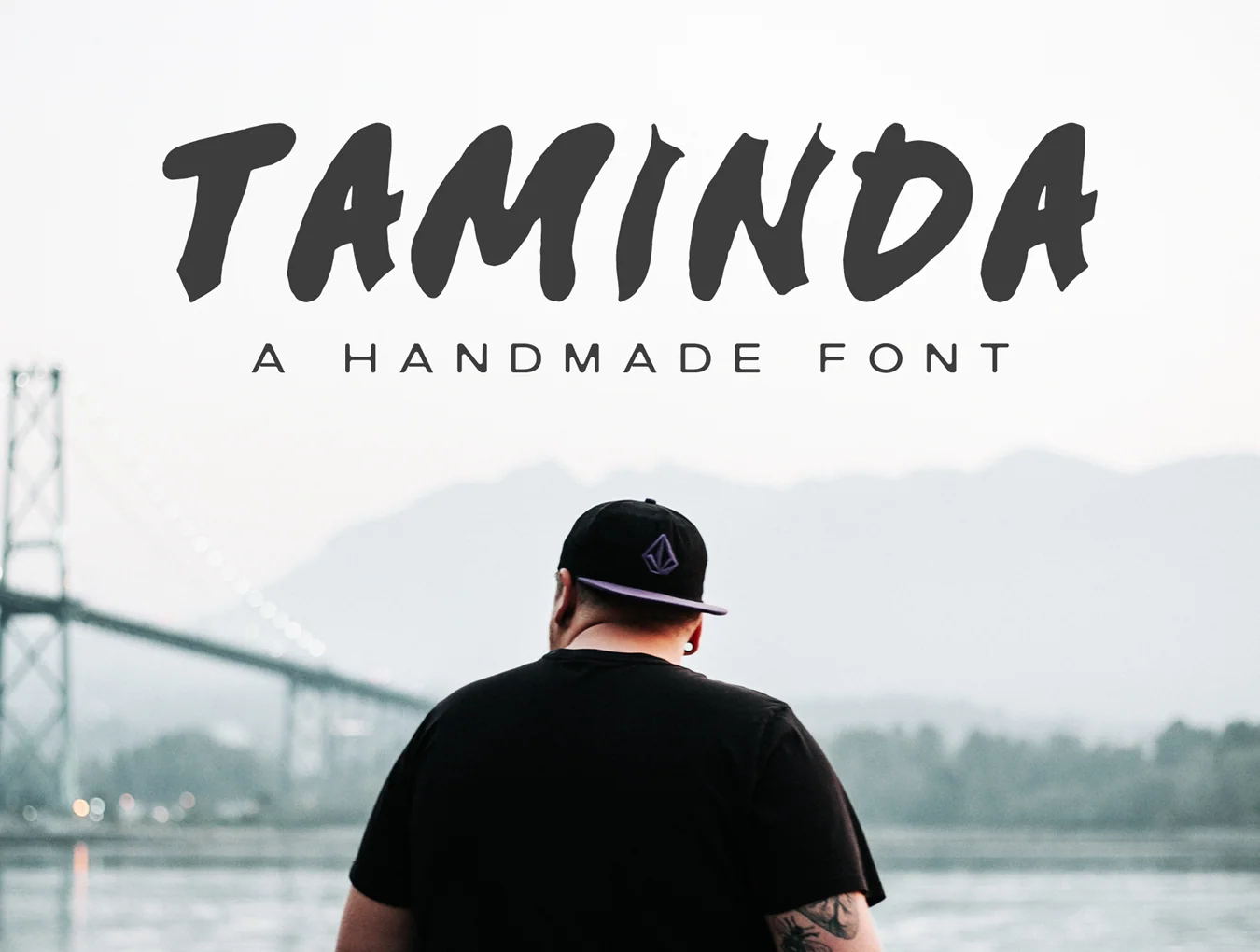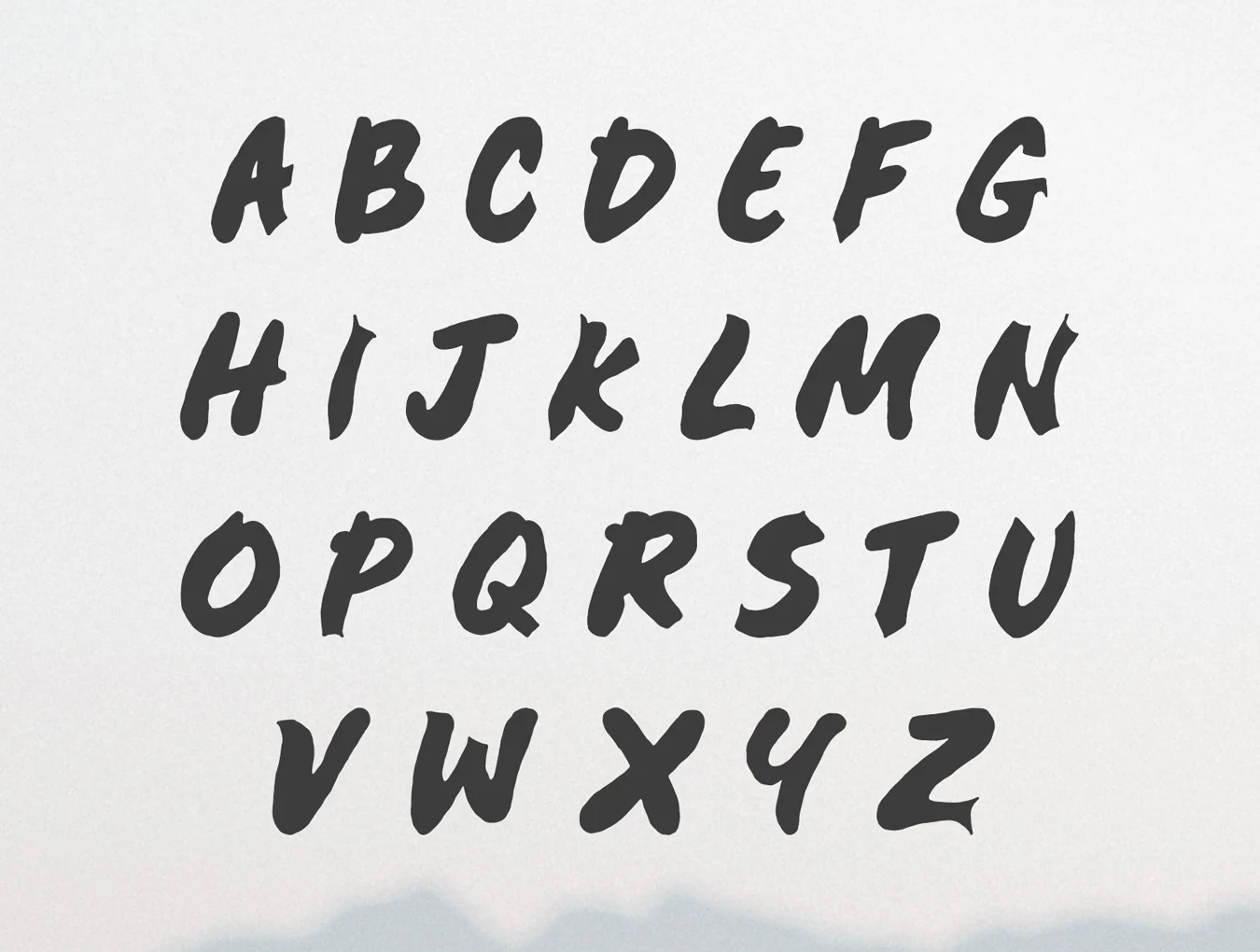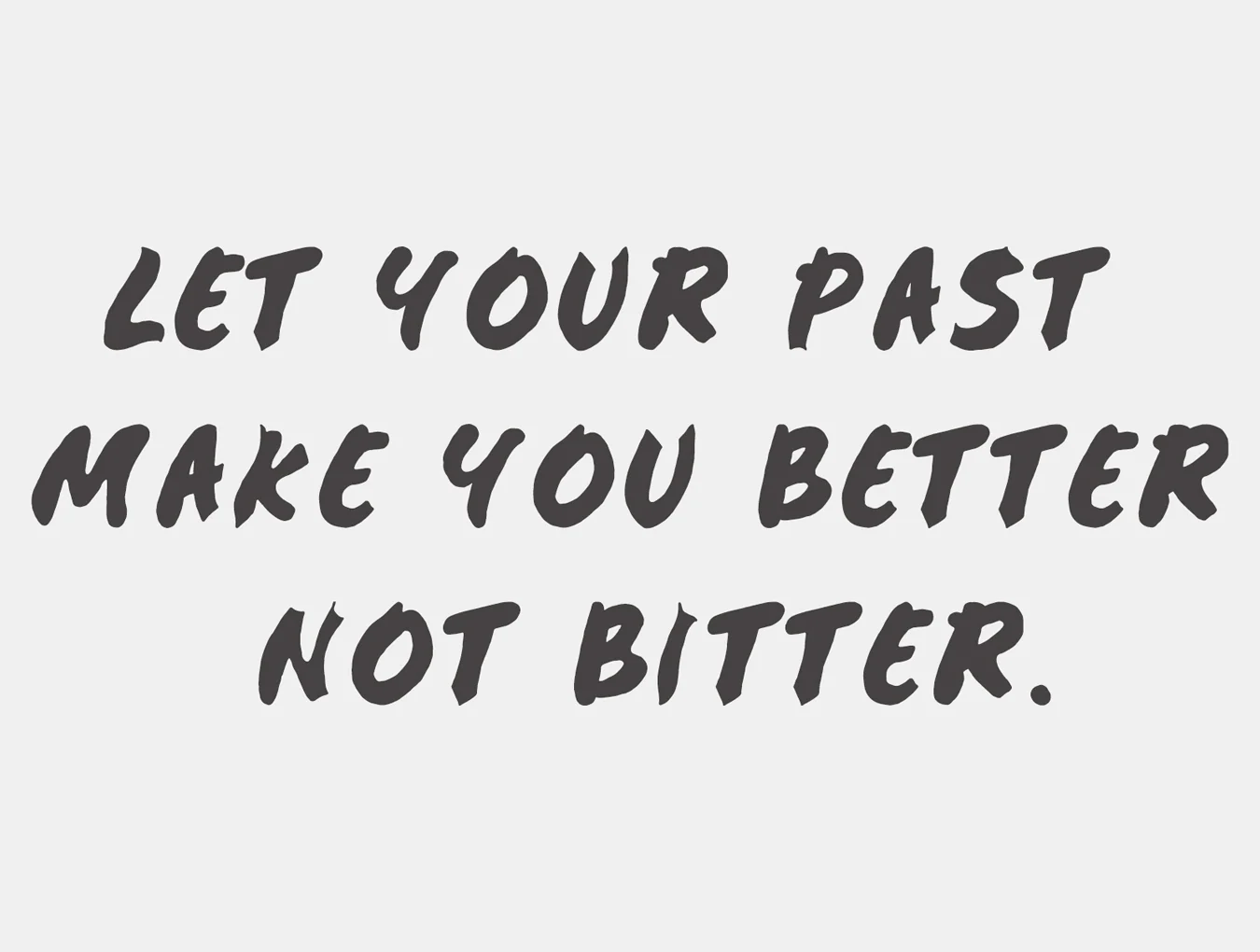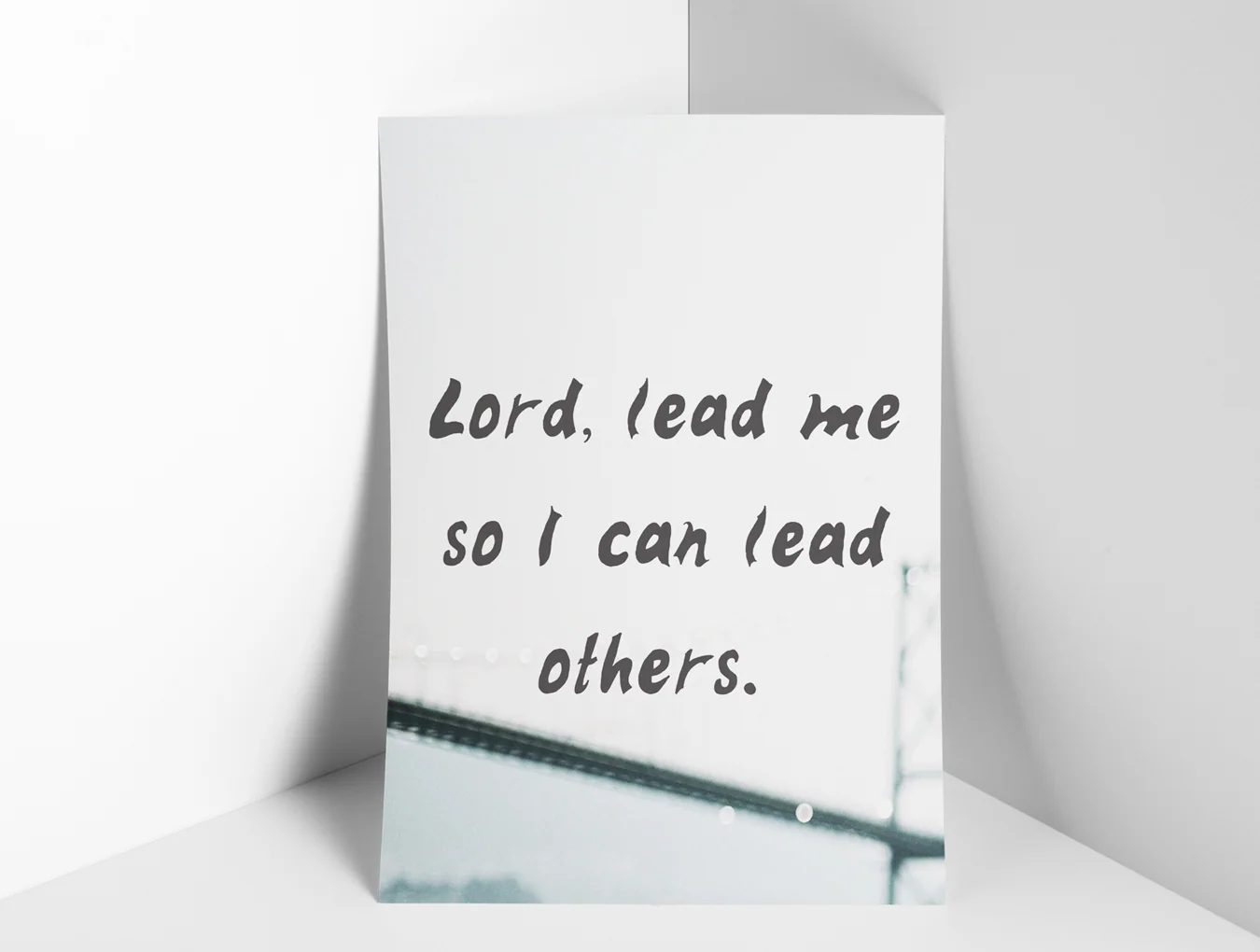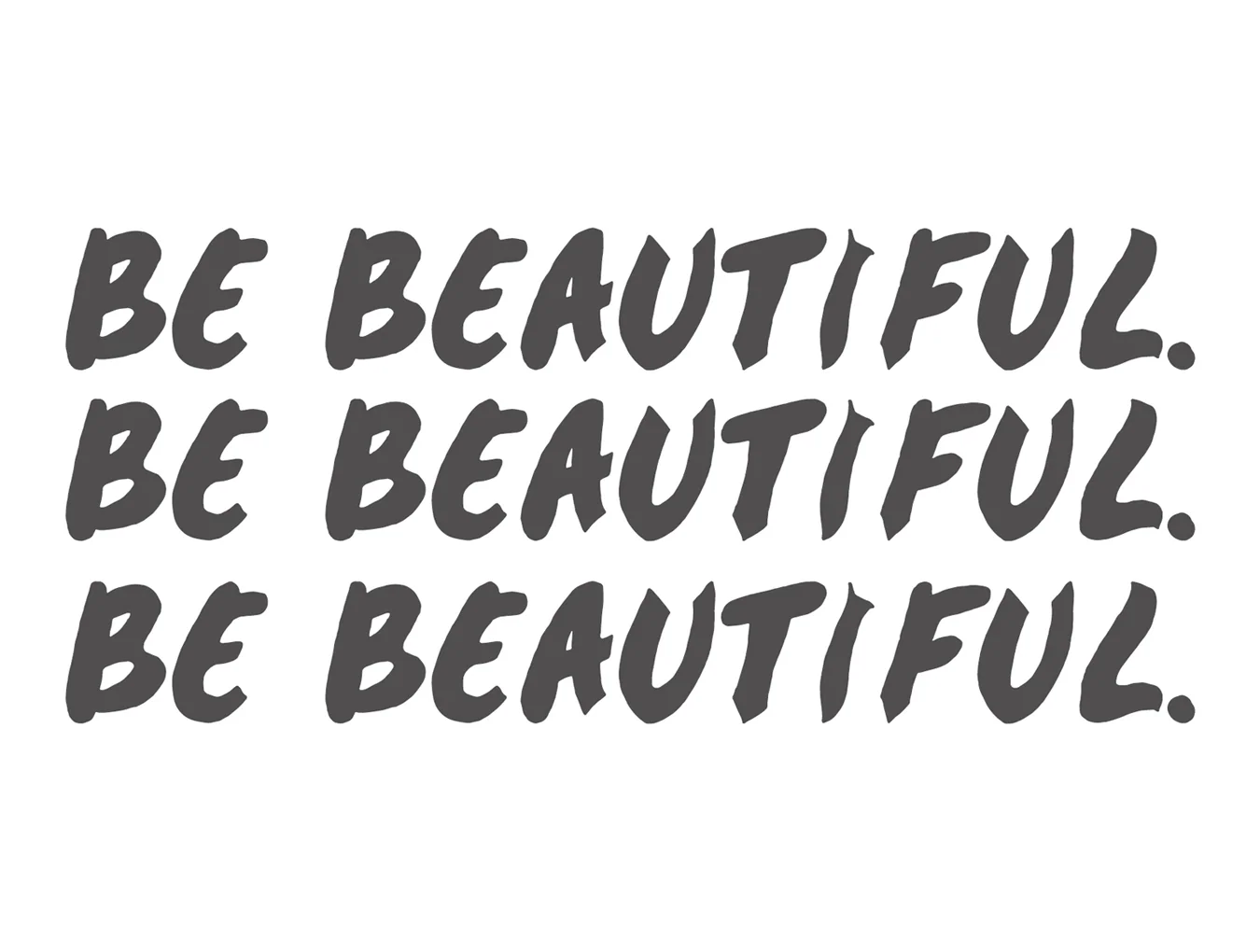
Taminda Handmade
Set of 138 characters
Capital letters, small letters, and numerals
Marks for punctuation and symbolic characters
Taminda is a contemporary handmade font with a gentle handwritten feel and polished quality. It suits greeting cards, branding, wedding postcards, business cards, quotes, posters, small businesses, book covers, stationery, marketing designs, magazines, and more.